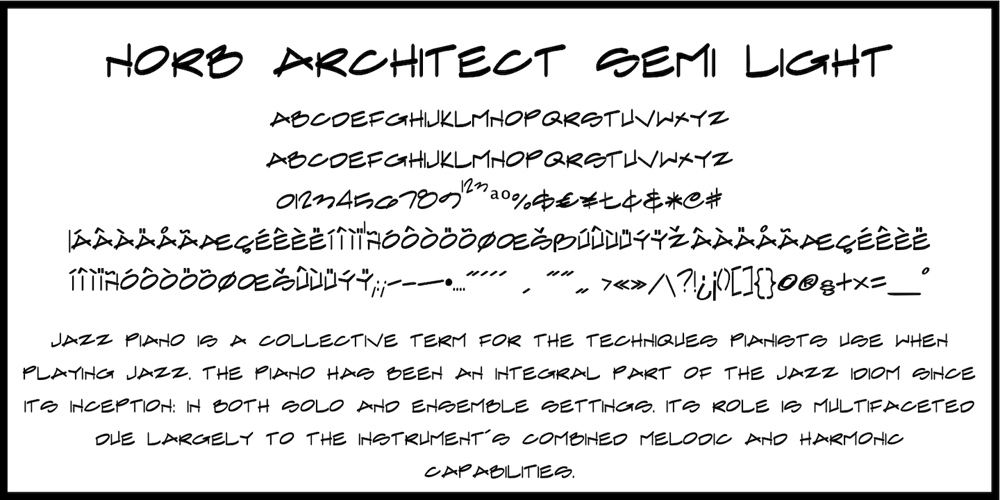
NorB Architect Font Family was designed by Nor Eddine Bahha and published by NorFonts. NorB Architect contains 12 styles and family package options. NorB Architect fonts will add a beautiful architectural hand-lettering style to all your CAD project drawings. Architects have always wanted their CAD drawings to look more like they were drawn by hand, rather than by a CAD program. These AutoCAD fonts are the first step in bringing back that “artistic hand-drawn” feel to your CAD drawings or any graphic design project that can use true type fonts. NorB Architect is actually my emulation of architectural lettering, it comes with 4 weights: Medium, Regular, Semi Light and Bold along with their Condensed and Extra Condensed version.NOTE: For more variations of “NorB Architect” font please visit click on this link.